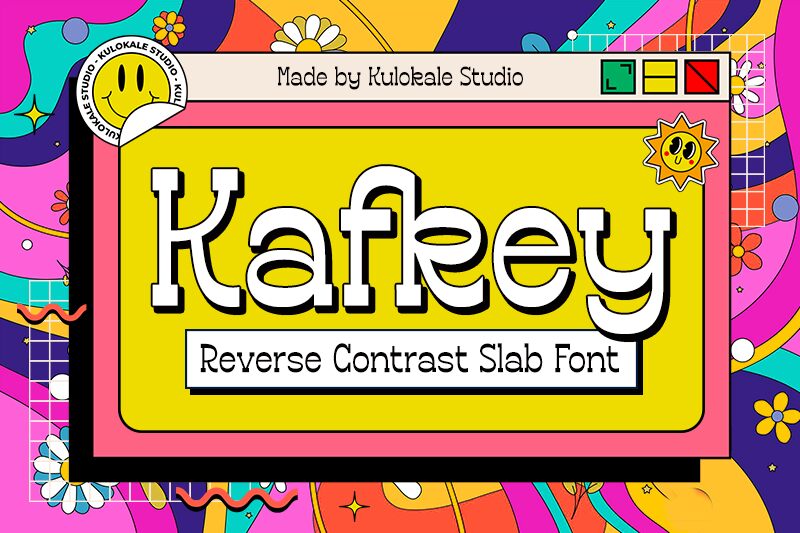
Kafkey, crafted by Kulokale Studio, is a mesmerizing display font that blends vintage charm with modern sophistication. With its retro slab serif style and semi-light weight, Kafkey exudes an air of elegance and uniqueness. Its distinct character makes it a great choice for various creative projects - from logo designs for artisanal cafes to eye-catching packaging for organic products. Whether you're working on nostalgic branding or want to add a touch of sophistication to your editorial layouts, Kafkey's semi-light font will inspire creativity and elevate your designs to new heights.
Kafkey